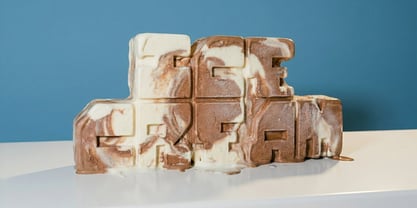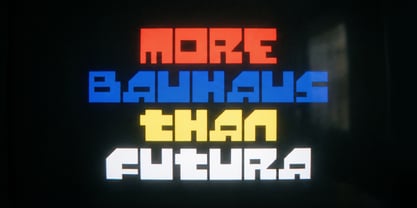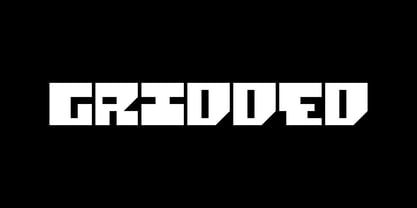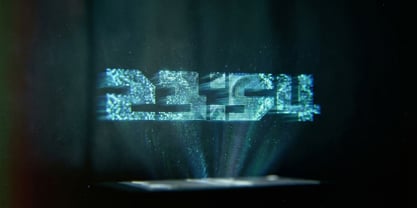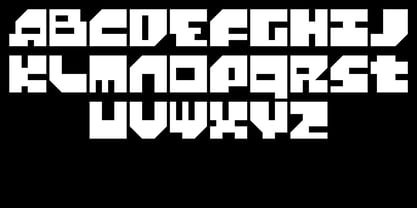
Gridded
by LIT Typefaces
The Gridded Font Family was designed by Markus Griebl and published by LIT Typefaces. Gridded contains 1 styles. More about this family
Gridded is an experimental display typeface created at Bauhaus-Universität Weimar. It originated from audio files whose sound frequencies were first visualized in circular forms and then placed into a grid, from which the letterforms emerged. The character set was completed manually. Shaped by the experimental legacy of the Bauhaus, Gridded reflects a process-driven approach to form generation. It is designed for headlines, logos, posters, and other applications that call for a bold and distinctive visual presence.
Designers: Markus Griebl
Foundry: LIT Typefaces